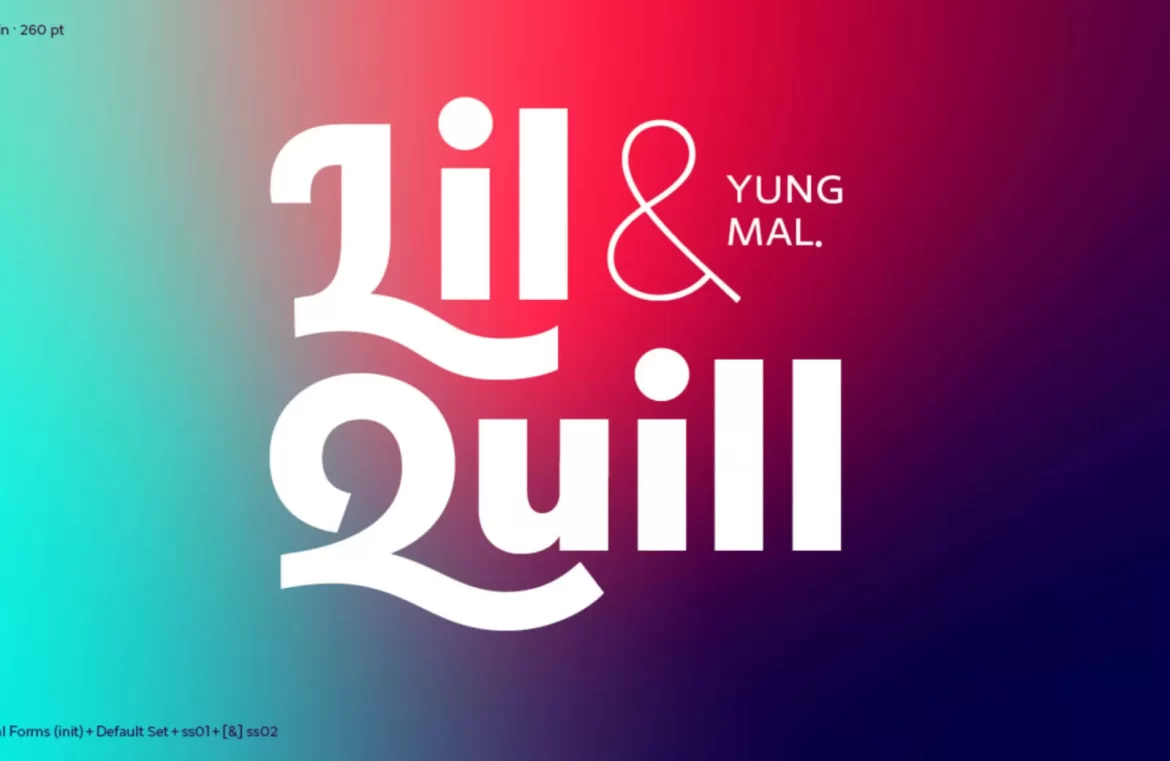
Selecting the appropriate font is crucial to setting the mood for your design projects—whether you’re aiming for a sense of tradition, aspiration, modernity, dynamism, or practicality, the right font makes all the difference.
With this in mind, each month we curate a list showcasing the 15 most exciting new fonts we’ve encountered online over the past month. Here’s the latest collection for your enjoyment!
Bulk
Bulk stands out with its bold, block-like shapes and fine interior lines crafting each letter. Suitable for impactful posters, large-scale typography, and distinct branding endeavors.
AW Conqueror Stincilla
Continuing the legacy of the AW Conqueror family, AW Conqueror Stincilla impresses with its stencil design. It boasts engaging shapes perfect for high-end branding, editorial use, and headline typography.
Vesterbro Sans
A breath of fresh air in the sans-serif genre, Vesterbro Sans is a masterclass in simplicity and casual aesthetics, now also in a variable font format.
Miau
The playful exuberance of Miau is apparent in its barely legible ribbon-like forms—ideal for a statement piece.
Rikna
Rikna, a versatile slab serif, offers a balance of functional text sizes and engaging display features, perfect for projects needing reliability infused with personality.
Austerlitz
The Austerlitz typeface family mimics the didone style with elegance, suitable for a variety of applications, including print and digital media, and has potential for use in branding.
Gramma
The contemporary sans-serif Gramma distinguishes itself through unique terminal designs, ensuring clarity on screen at any size and interest at larger scales, making it an excellent brand font.
Miracle Fairway
For a striking logo, consider Miracle Fairway, a bold display typeface with serifs that seem to propel the letters forward with dynamic energy.
Vitrine
Vitrine brings drama to the table with its high-contrast sans-serif design, especially pronounced in its bolder and blacker weights, ready to make a statement as a display face or in logos.
Kelyon
The refined Kelyon invokes the past with its medieval and Art Nouveau influence, providing an elegant choice for editorial design with its range of stylistic alternates.
Fit Devanagari
Fit Devanagari redefines the essence of style, allowing for versatile sizing solutions, perfect for creating perfectly fitted text spaces.
Precise Sans
The futuristic Precise Sans, with numerous weights and vibrant italics on the horizon, captures the essence suitable for user interfaces where legibility is king, yet a dash of character is desired.
Mistont
Mistont marries serifs with grace and fluidity, embodying a perfect selection for uplifting lifestyle brand identities.
Exergue
The exquisite Exergue opts for flared terminals that complement its serifs, rendering text that feels both new and recognizable—an impeccable option for extended reading material.
Manier
Manier features angular wedges and open proportions across its six weights, infusing a bold and up-to-date vibe into your design work.